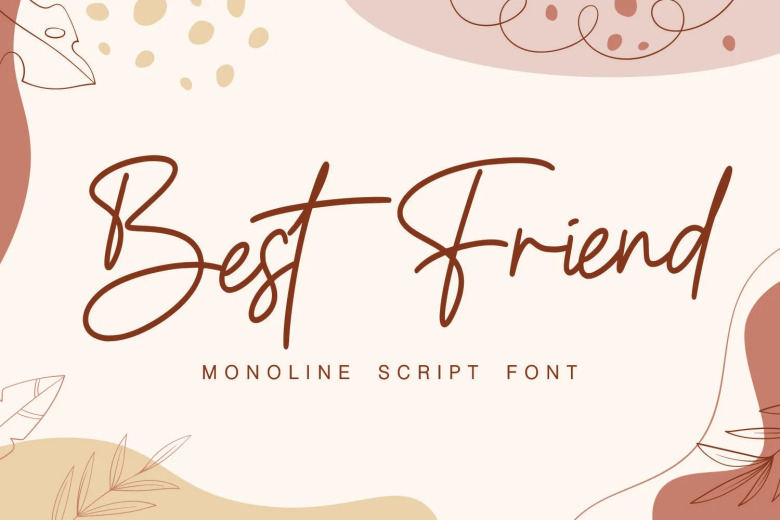
Best Friend Font
Introducing Best Friend. Natural signature font with a monoline handwritten style. ‘Best Friend’ is so beautiful, and it feels like there’s no hesitation in how the album pans out. It’s ideal for wedding invitations, thank you cards, quotes, greeting cards, logos, business card, and every other design which needs a handwritten touch. With a varying baseline, smooth lines, gorgeous glyphs and beautiful alternates.
PUA encoded, Access all of the swashes with ease! So fall in love with its incredibly versatile style throughout this masterpiece and use it to turn any new project into a spectacular design. this is a great font to include in any crafting project, where you want it to look more personal!
Best Friend Monoline Script Font